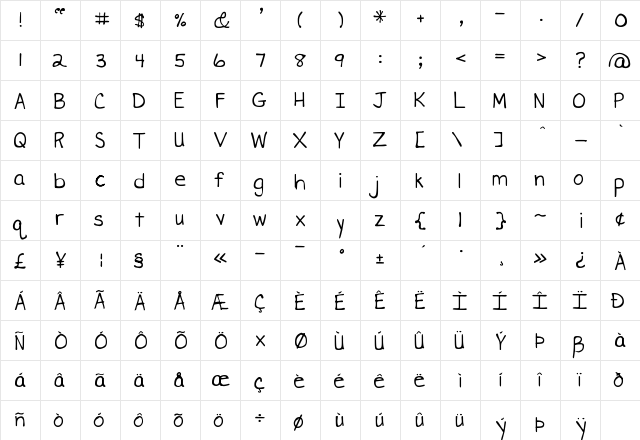
DJB Miss Liz Regular
DJB Miss Liz offers clean, dependable letterforms without strong stylistic allegiance, making it a practical choice for designers who need flexibility.